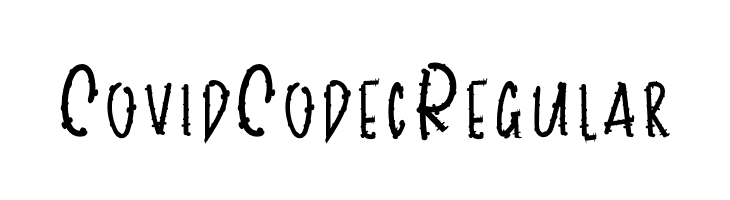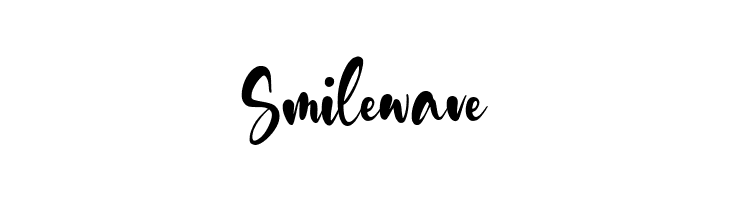
A modern, elegant script font with flowing, connected characters.
An elegant, flowing script font with cursive, handwritten style.
A bold, futuristic font with sharp angles and geometric shapes.
A bold, expressive script font with flowing, cursive characters.
A bold, hand-drawn font with dynamic strokes and an expressive style.
A dynamic, brush-style font with fluid strokes and a sense of movement.
A playful and whimsical script font with fluid, dynamic strokes.
A modern, geometric font with elongated, narrow letterforms and consistent stroke width.
A bold, retro-inspired font with rounded, chunky characters.
A modern, geometric font with a futuristic and minimalistic design.
设计师偏爱 mellanie, Heartkything, Future Worlds, Ravella and Skylarr Scott,因为其造型干净、适用范围广—— 从品牌识别到落地页、海报都能胜任。